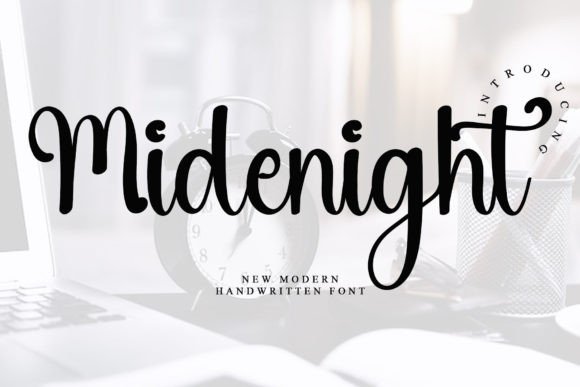
Dive into the realm of minimalist design with Midenight Font, a captivating script font that exudes contemporary elegance and timeless charm. Crafted by the skilled artisans at Inermedia STUDIO, Midenight Font is a symphony of graceful lines, delicate curves, and perfectly balanced strokes. Its refined character dances across your screen, leaving a trail of visual artistry that will elevate your designs to new heights.
Midenight Font draws inspiration from the enduring legacy of classic calligraphy, reimagined with a modern twist. Each letterform is meticulously crafted, showcasing the beauty of handwritten strokes while maintaining a crisp, contemporary aesthetic. The result is a font that seamlessly blends tradition with innovation, offering a touch of sophistication to any project it adorns.
With its PUA encoding, Midenight Font grants you effortless access to a treasure trove of stunning glyphs and ligatures. Unleash your creativity and explore endless possibilities, from whimsical invitations to captivating logos, from enchanting social media posts to breathtaking branding materials. Midenight Font empowers you to craft designs that resonate with your audience, leaving a lasting impression that will set you apart from the ordinary.
Whether you're a seasoned designer seeking to expand your font collection or an aspiring creative yearning for a touch of elegance in your projects, Midenight Font is your perfect companion. Its timeless appeal and versatile nature make it an indispensable tool for a wide range of design endeavors. Embrace the allure of Midenight Font and embark on a creative journey that knows no bounds.